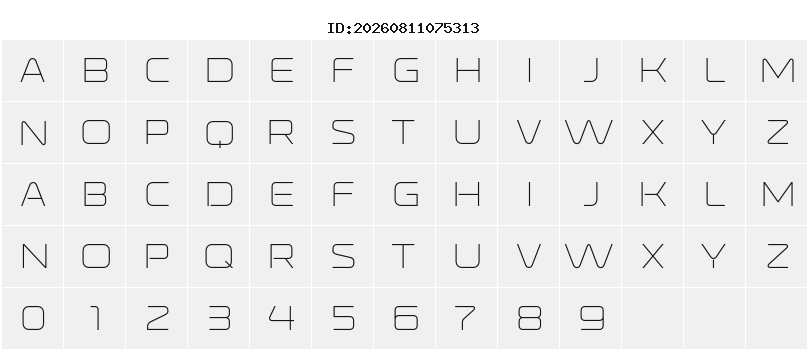
Ronduit Capitals Light Preview
• Font Name: Ronduit Capitals Light
• Font Style: Light
• Font ID: IvanFilipov,NeogreyLtd: Ronduit Capitals Light: 2013
• Full Font Name: Rondiut Capitals Light
• Version: Version 1.003 2013
• PostScript Name: RonduitCapitals-Light
• Character Count: 416
• Designer: Ivan Filipov
• Manufacturer: Ivan Filipov, Neogrey Ltd
About Ronduit Capitals Light.otf
Ronduit Capitals Light.otf is a modern, elegant sans-serif font designed for ultimate readability and visual harmony. Perfect for branding, headlines, web design, and print materials.